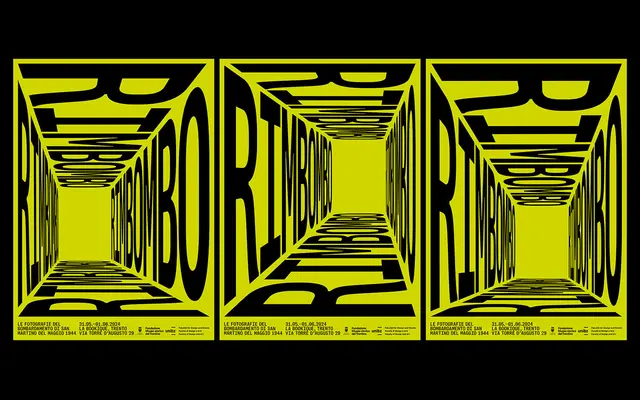
Right Grotesk Mono
Pangram Foundry · Alex Slobzheninov · 2023
A fixed-width grotesque by Alex Slobzheninov that trades monospaced rigidity for compact proportions and subtle personality, available in seven weights with matching italics and a variable cut.
Part of Pangram Pangram's broader Right superfamily, it brings a friendlier register to the typically austere monospaced genre through compact proportions and a handful of alternate characters including double-storey a and g options, circled numerals and case-sensitive forms. Fourteen styles span Fine to Black across upright and italic, with a variable font also included. It pairs directly with Right Grotesk and Right Serif Mono within the superfamily for mixed-weight editorial and UI systems.
A fixed-width grotesque sans-serif with humanist warmth; Pangram classify it under Grotesk, Monospace, and Sans Serif, placing it firmly in the monospaced grotesque tradition.